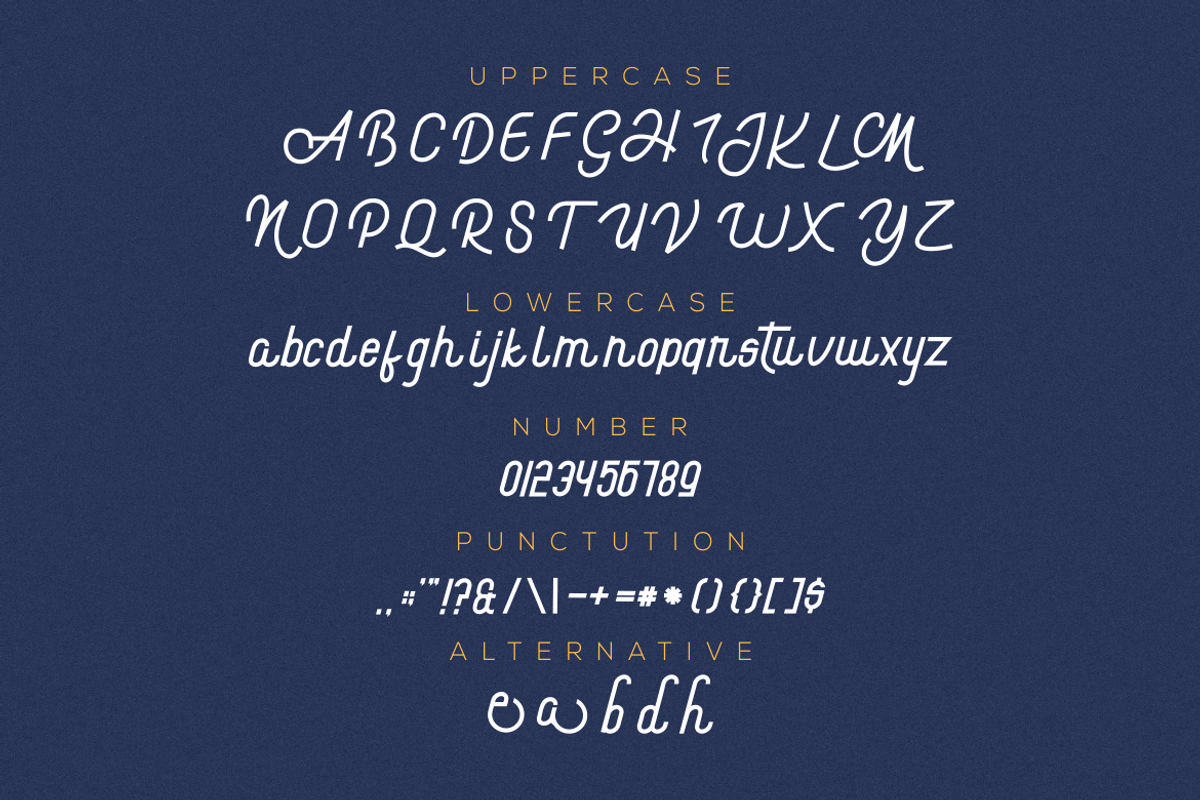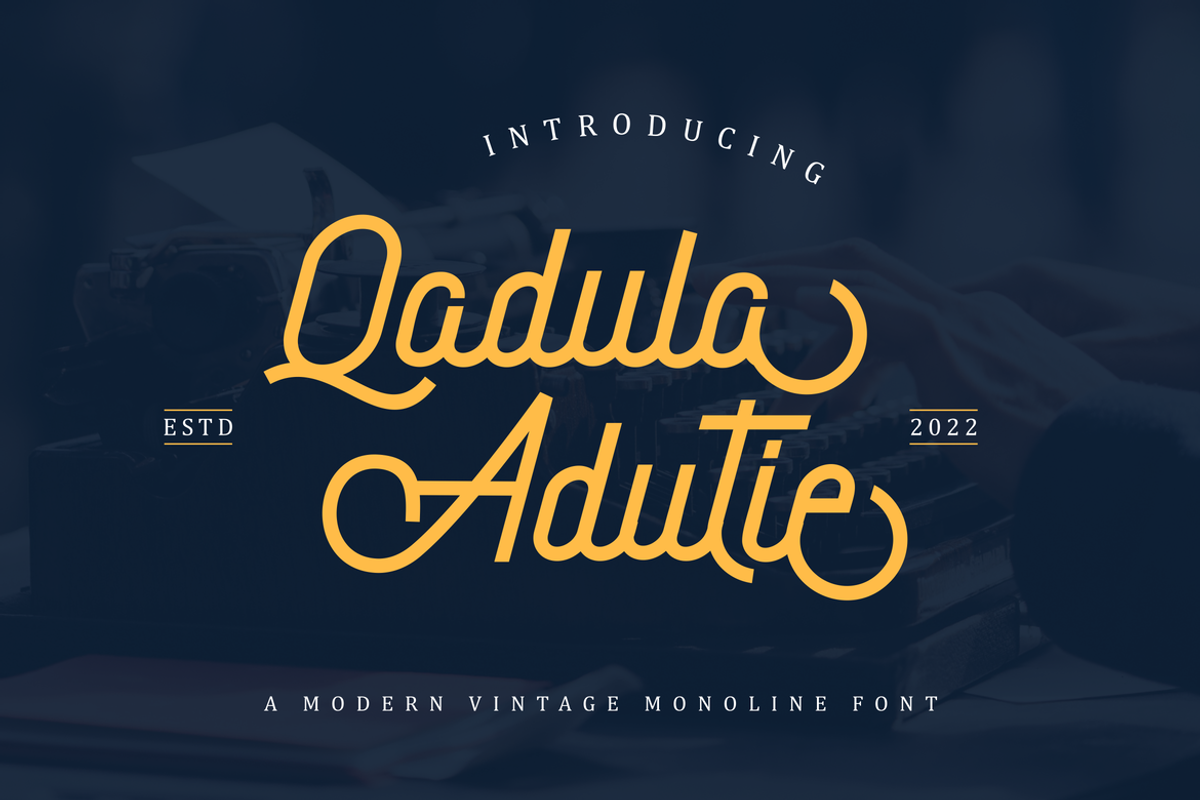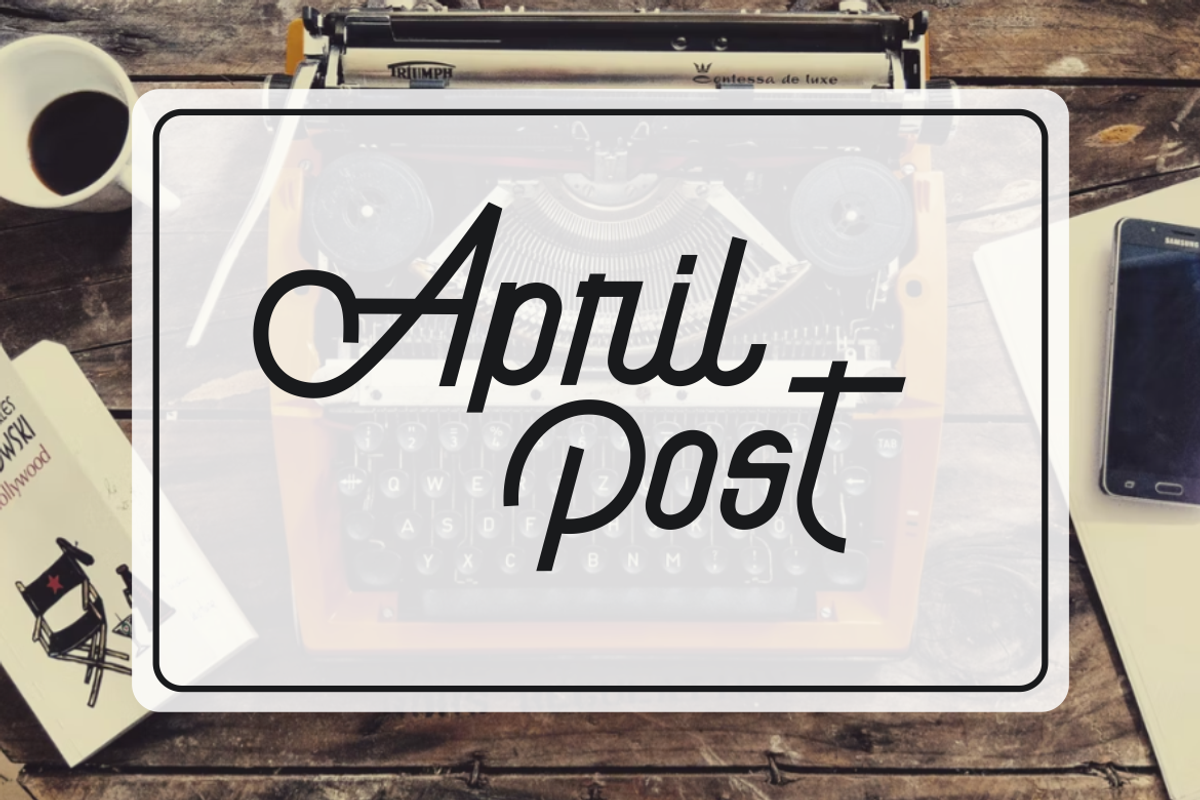
Qadula Adutie
Introducing our new product Qadula Adutie Font - Modern Font
Qadula Adutie Font - Modern Font is a bold and authentic display font. The font is suitable for any branding project like logo, t-shirt printing, esport, and many more. outstanding in a wide range of contexts.